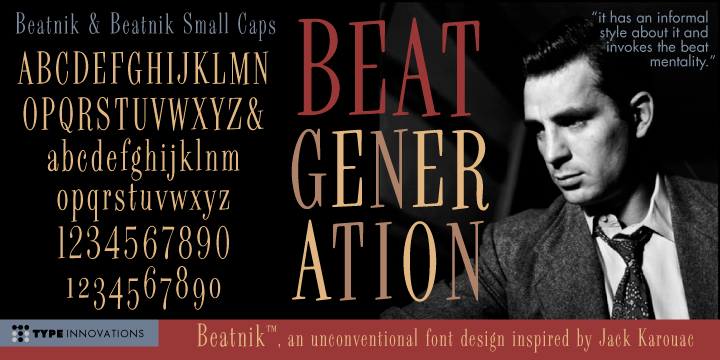
Beatnik is a display serif font family. This typeface has two styles and was published by Type Innovations.
Beatnik is a unconventional font design inspired by Jack Karouac and the ‘Beat Generation’. If has an informal style about it, and invokes a casual and friendly mood. Beatnik also comes in small caps and old style figures. Beatnik truly has the heart and soul of the beat mentality. Groovin’ baby.